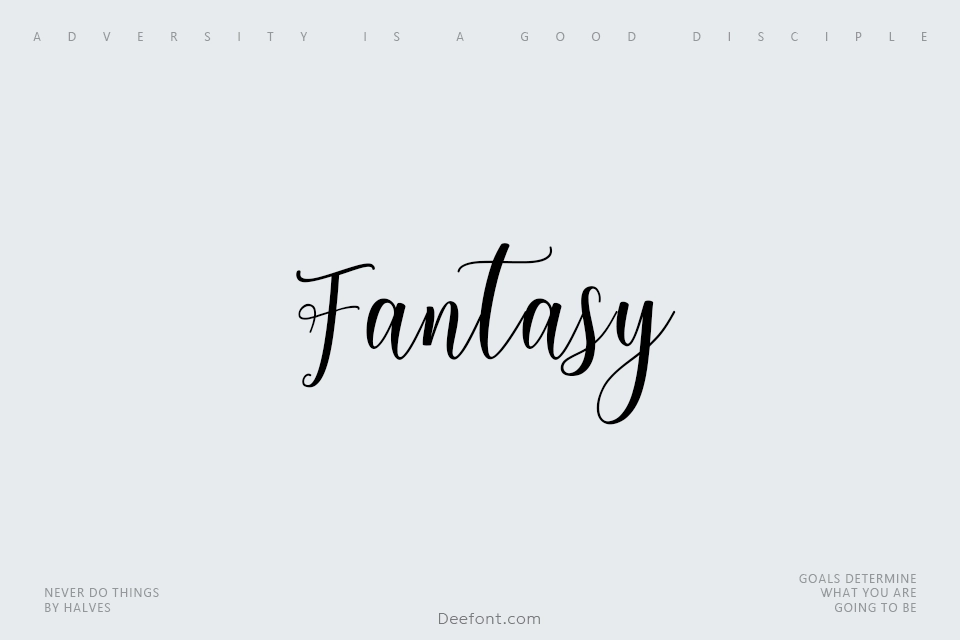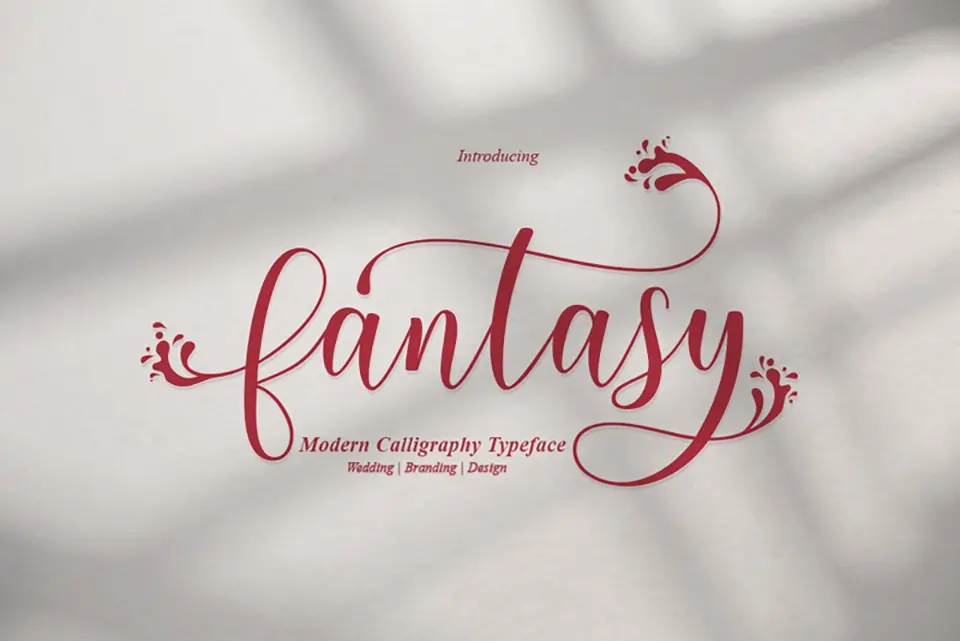
Fantasy Font
Fantasy is an elegant and sophisticated calligraphy script typeface designed by Mr. Letters, featuring innovative and extraordinary appearance perfect for stylish creative projects. This font combines decorative characters with a refined aesthetic, making it ideal for watermarks, wedding cards, poster designs, and sophisticated typography applications. With its charming swashes and beautiful glyphs, Fantasy delivers a delicate, expressive touch to any design work, supporting multiple languages and character sets for versatile creative use.